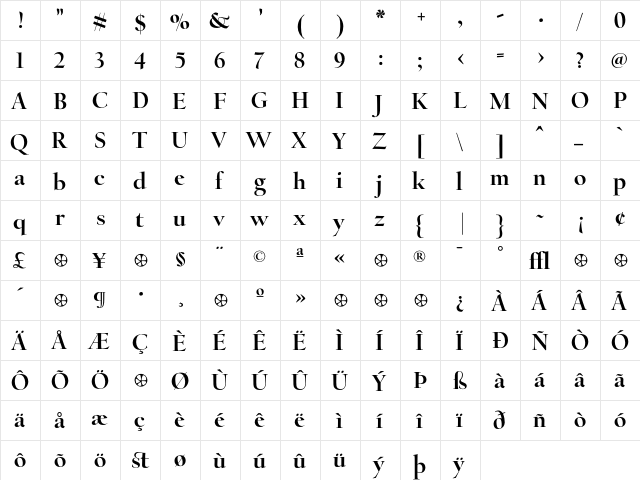
CalifornianDisplay Bold
Design Context for CalifornianDisplay Typeface
CalifornianDisplay is built around its visual character rather than neutral utility — its distinctive forms are designed to make an impression at display sizes. The heavy weight commands attention and anchors typographic hierarchies.
Font Pairing: Pair with a clean neutral sans-serif for body copy to let CalifornianDisplay's character lead without overwhelming the composition.
Pro Tip: Treat CalifornianDisplay as the centrepiece of your typographic hierarchy. One strong heading set in a decorative face can carry an entire layout.